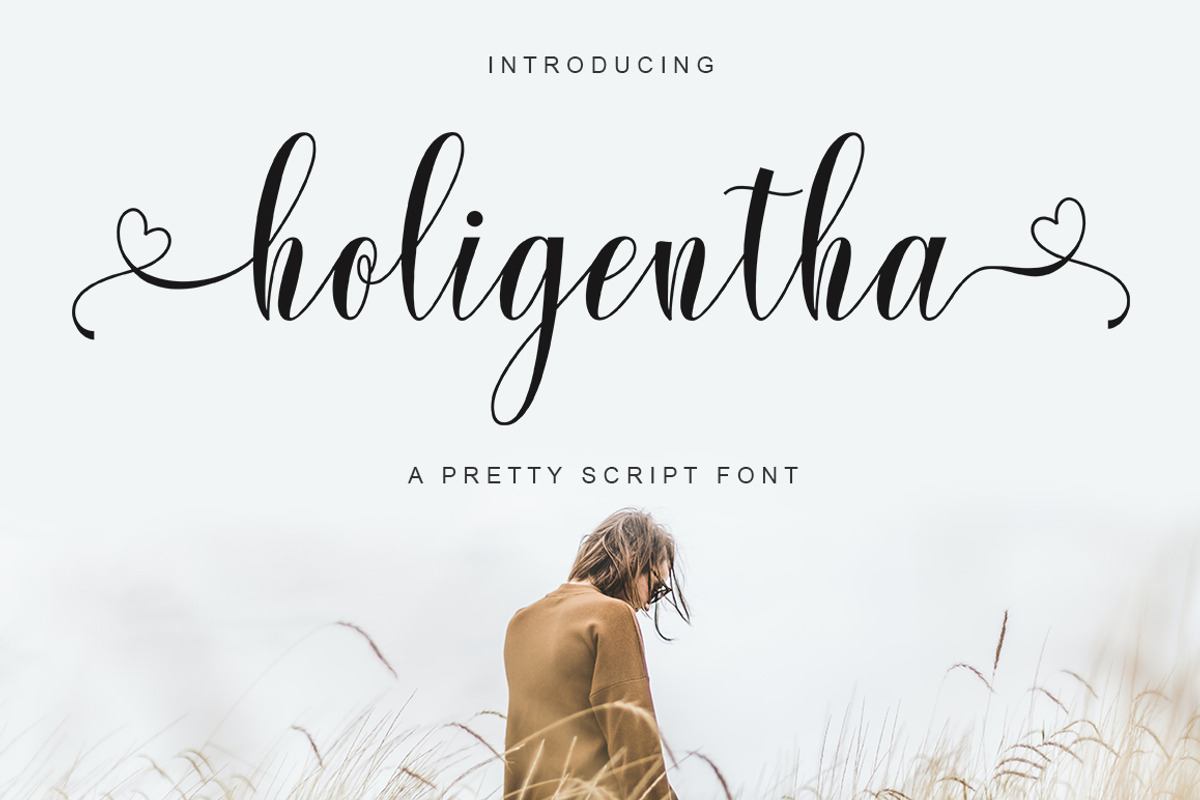
Holigentha Font Free Download is a graceful and flowing script typeface that radiates elegance and creativity. With its smooth curves, hand-lettered style, and delicate details, Holigentha is perfect for wedding invitations, branding, beauty product packaging, social media graphics, and inspirational quotes.
This font brings a personal and romantic feel to every design, making it an excellent choice for feminine and lifestyle-focused projects. Whether you’re crafting a boutique logo or creating heartfelt stationery, Holigentha adds charm and sophistication to your typography.